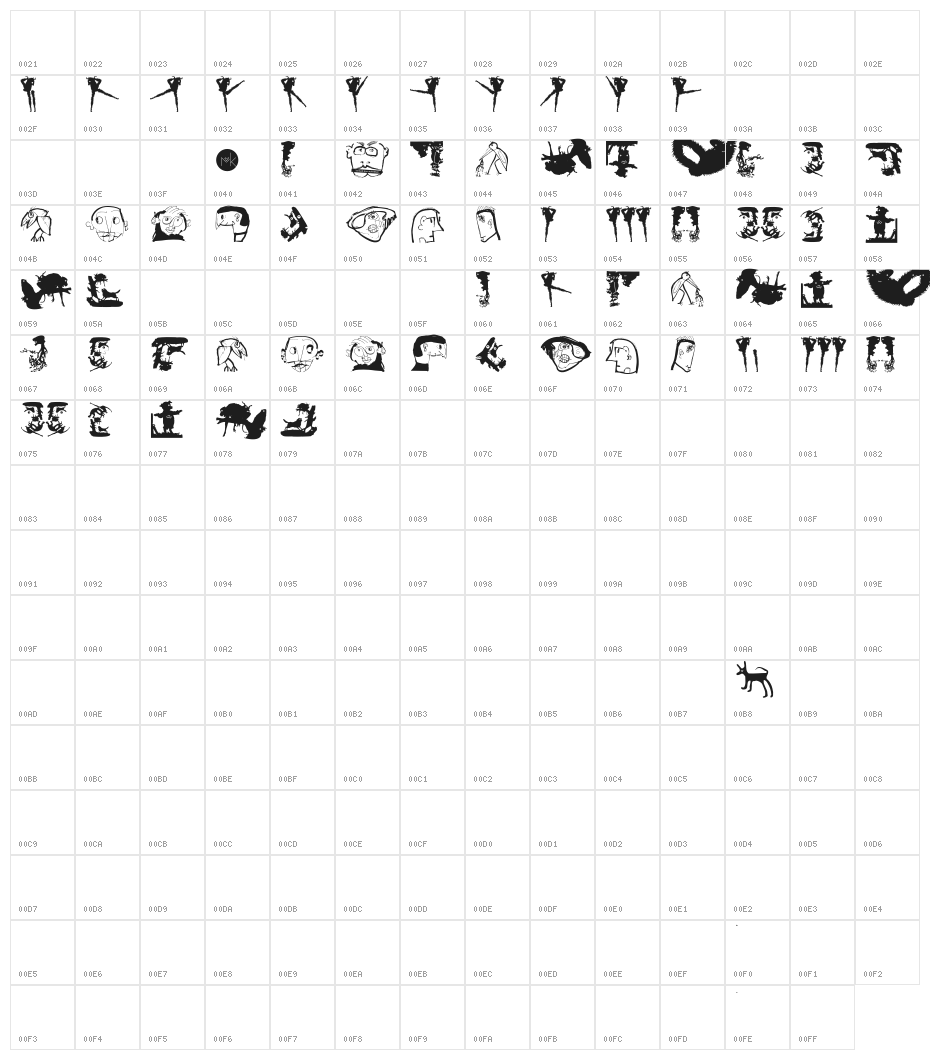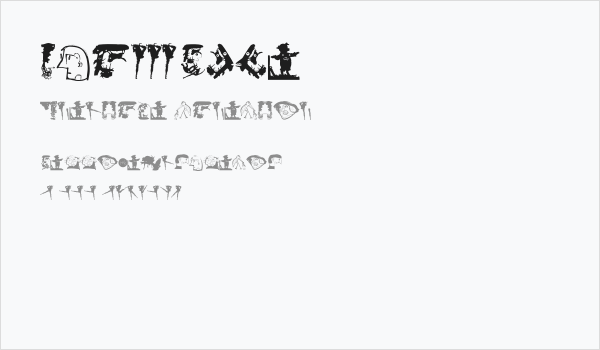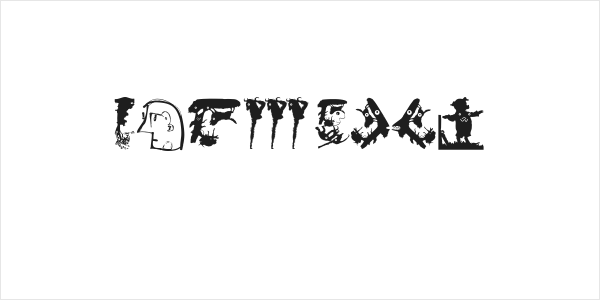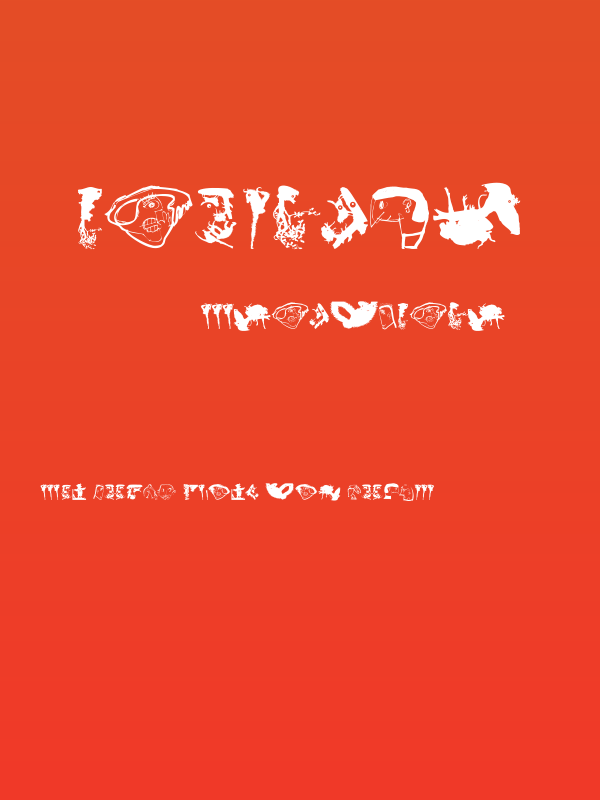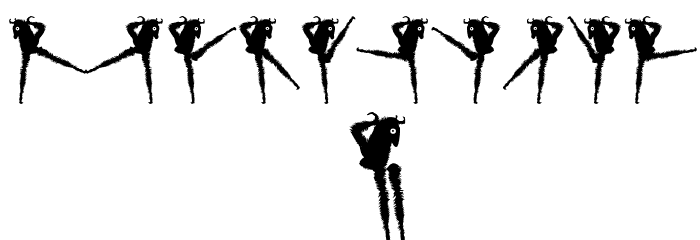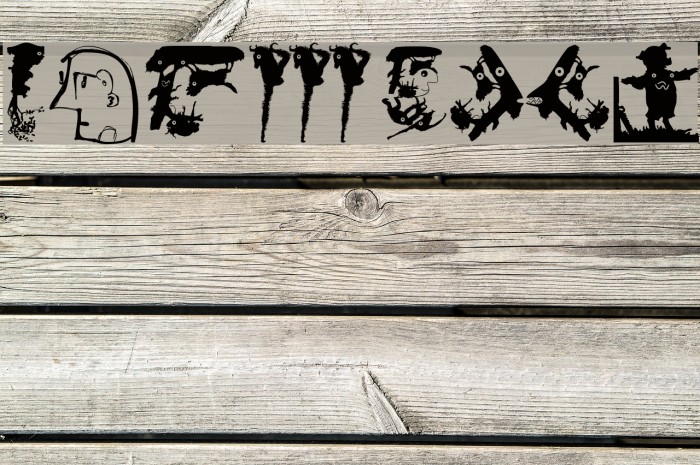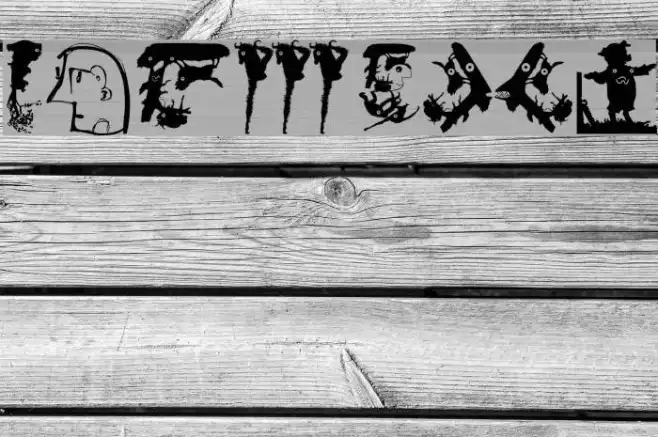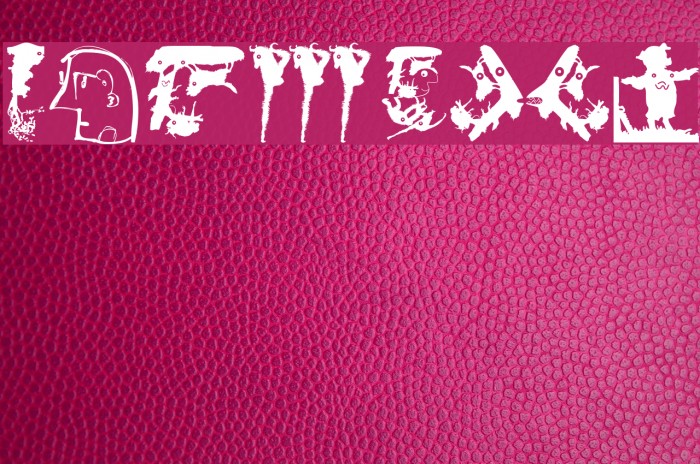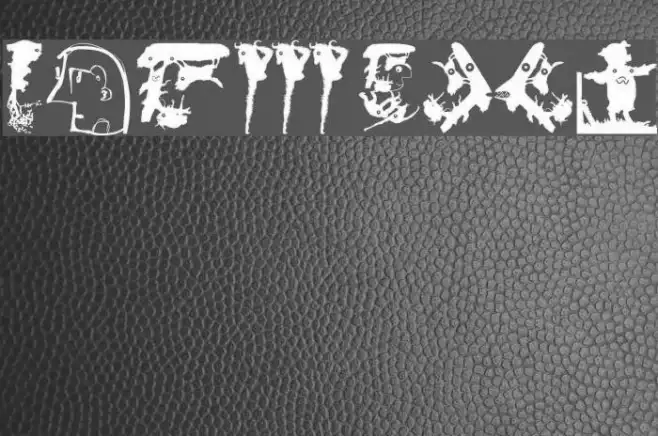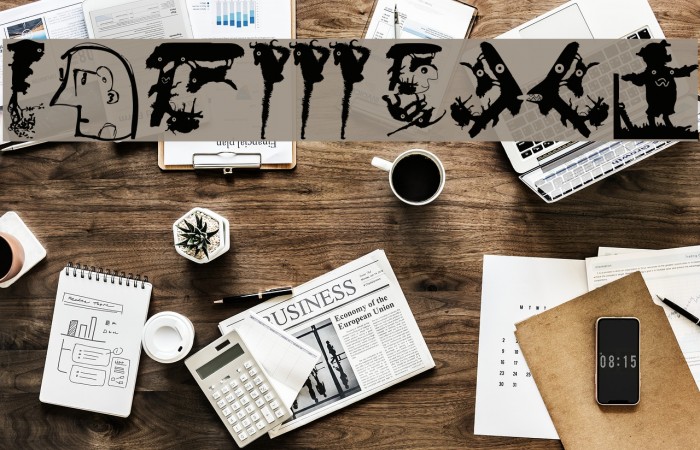
ApishOne Font
ApishOne Description
This font is a highly creative and artistic display typeface featuring whimsical and abstract character designs. Each letter is represented by a unique illustration, often incorporating human-like figures or abstract shapes. The style is playful and imaginative, with a strong emphasis on visual storytelling. The characters are bold and distinctive, making them stand out in any design. This font is perfect for projects that require a touch of humor and creativity, such as children's books, posters, or artistic branding.
| Proposed Projects | Ideal for children's books, creative posters, artistic branding, and playful designs. |